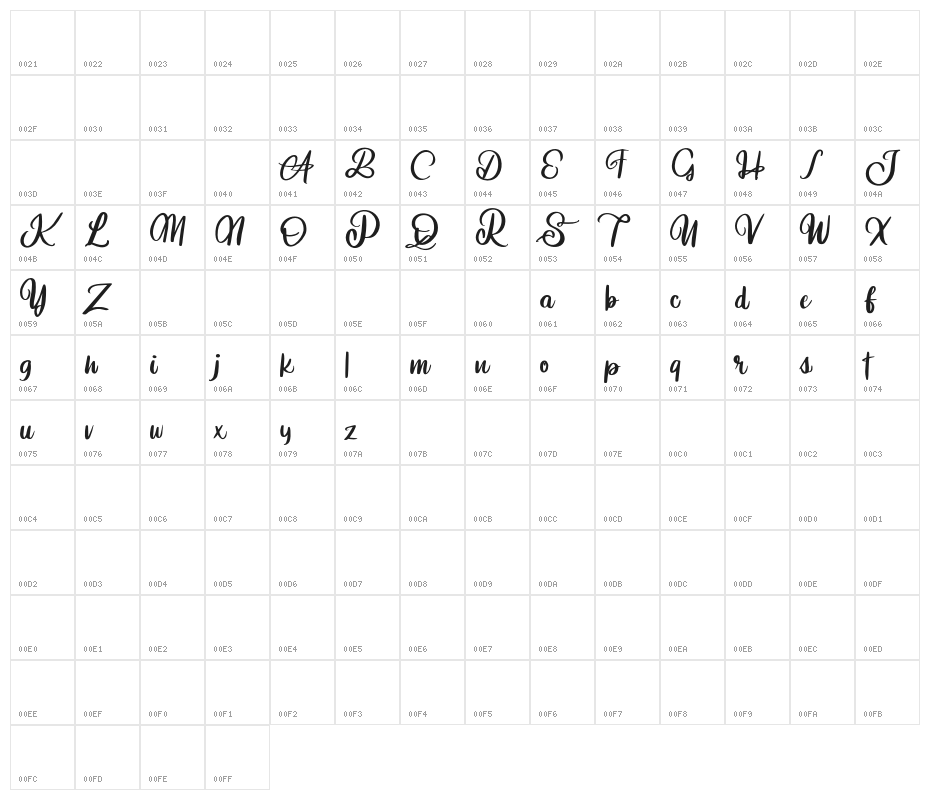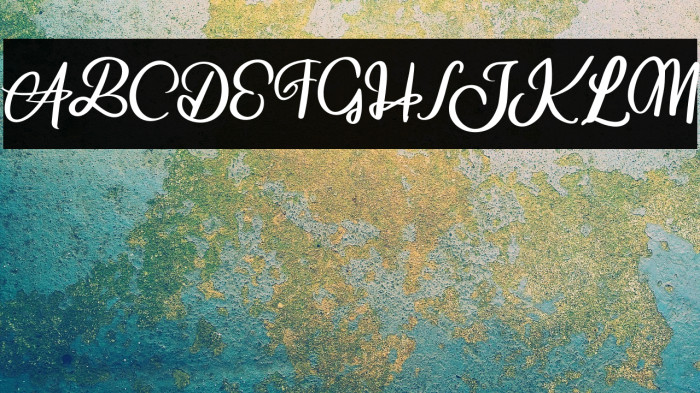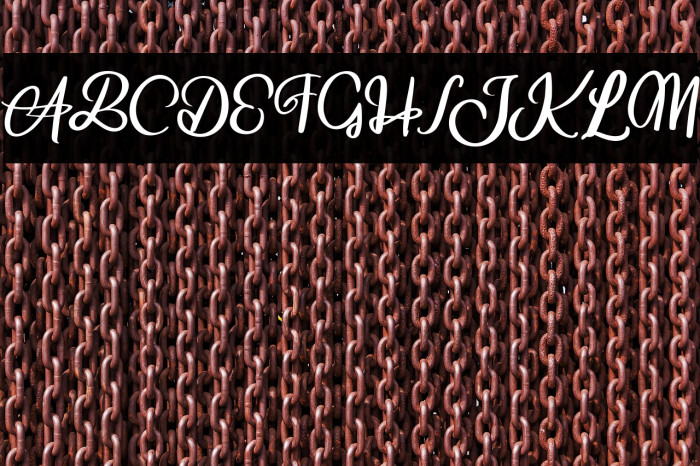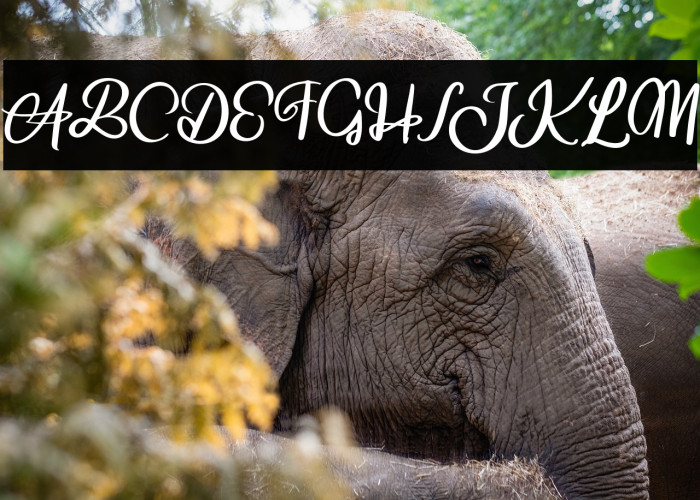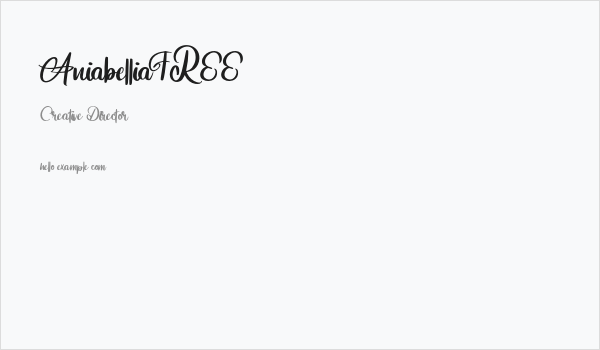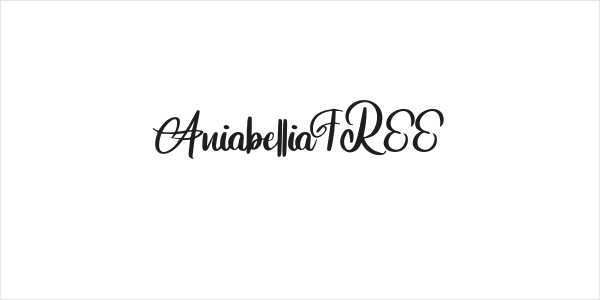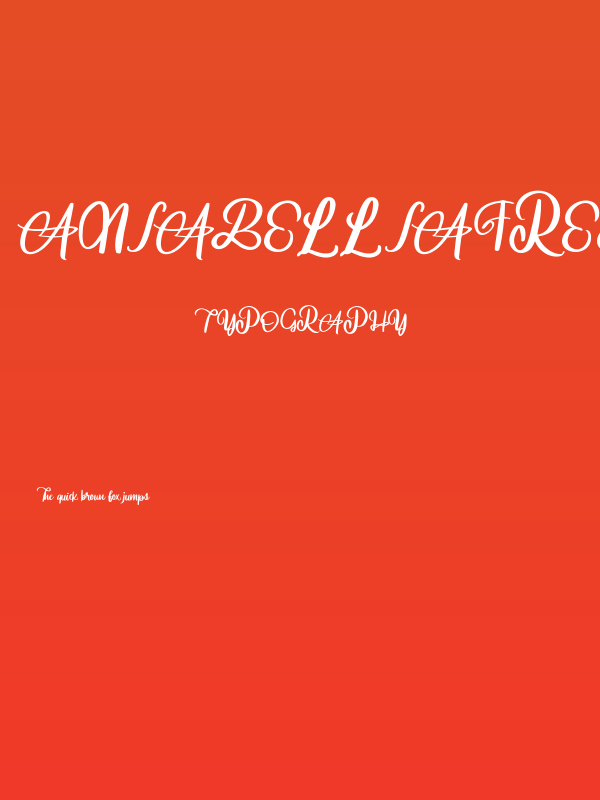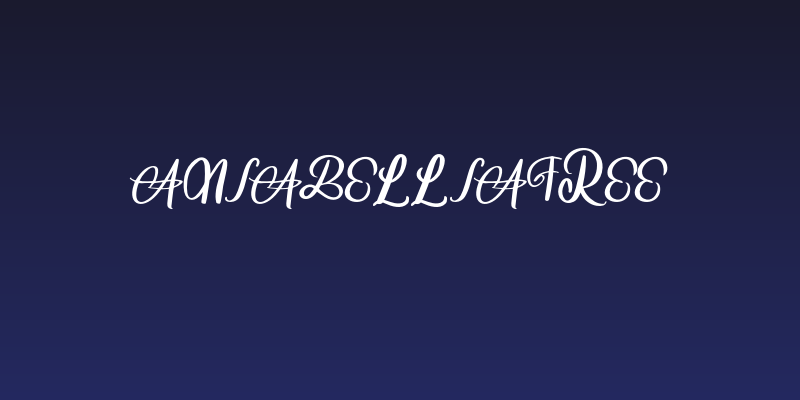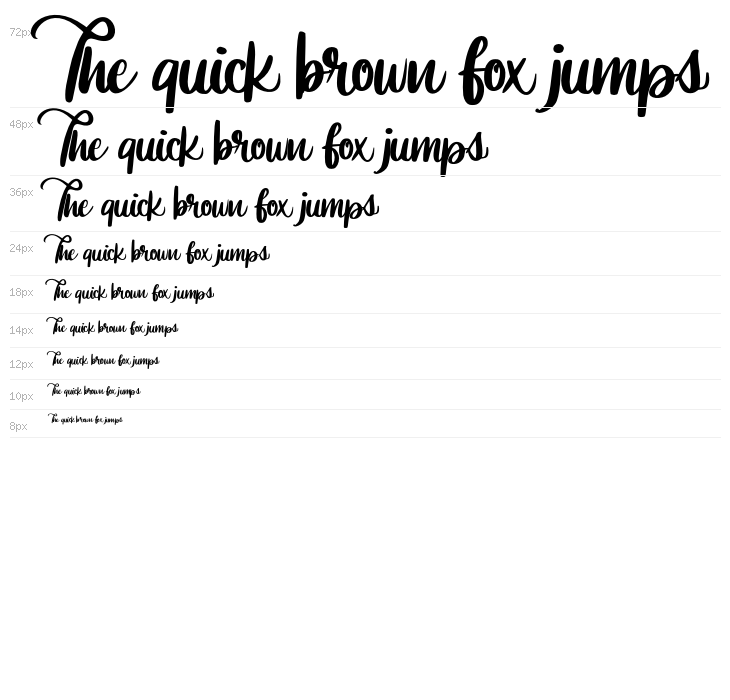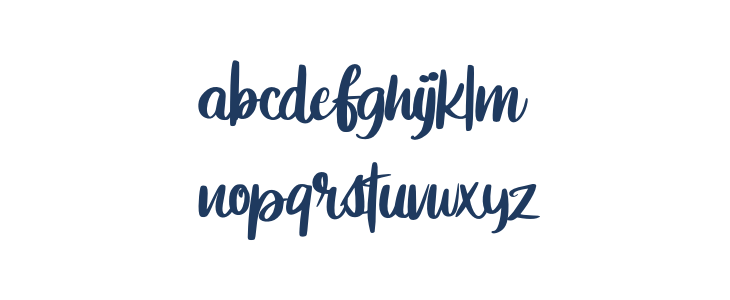
AniabelliaFREE Font
AniabelliaFREE Description
This font features a flowing, cursive style with elegant loops and swashes, giving it a sophisticated and artistic appearance. The uppercase letters are particularly ornate, with exaggerated curves and flourishes that add a touch of drama. The lowercase letters maintain a consistent style, with smooth connections between characters that enhance readability while preserving the decorative nature. The overall design is balanced, with a medium weight that provides a strong presence without overwhelming the eye. This font is ideal for projects that require a personal, handwritten touch, such as invitations, greeting cards, and branding materials.